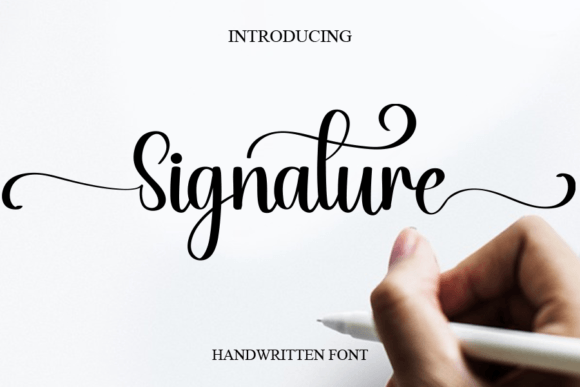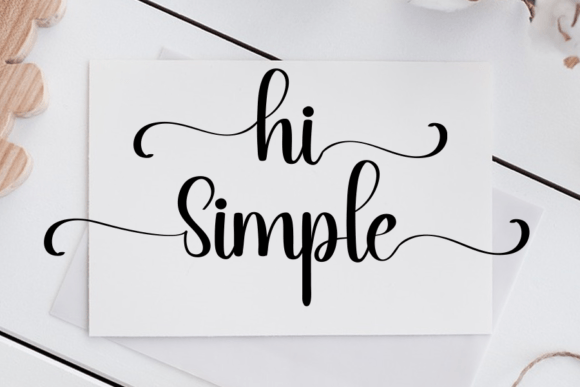
Signature Font
Signature is a fun and quirky handwritten font. It adds a joyful and modern touch to each of your designs. Add it confidently to your projects, and you won’t be disappointed.